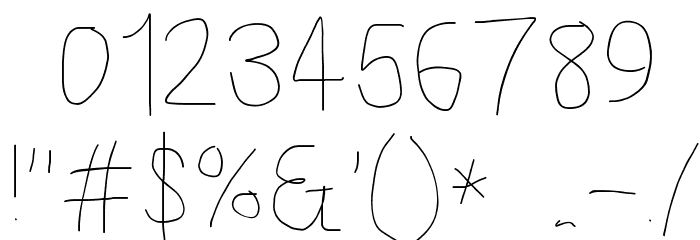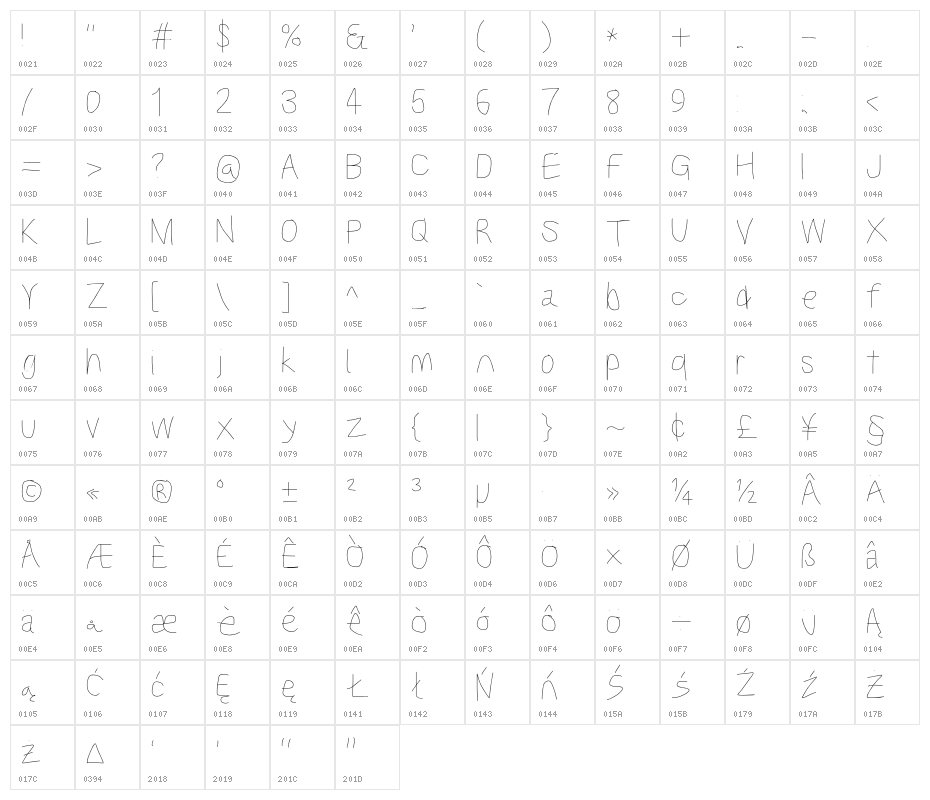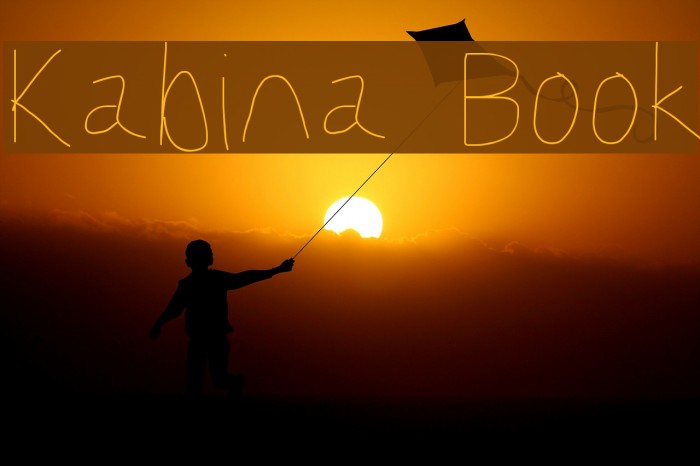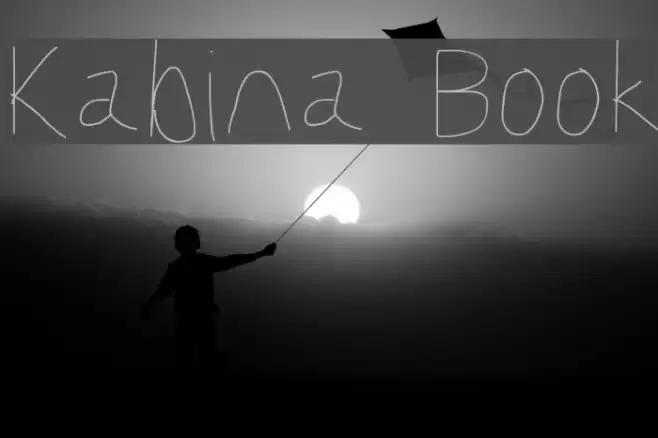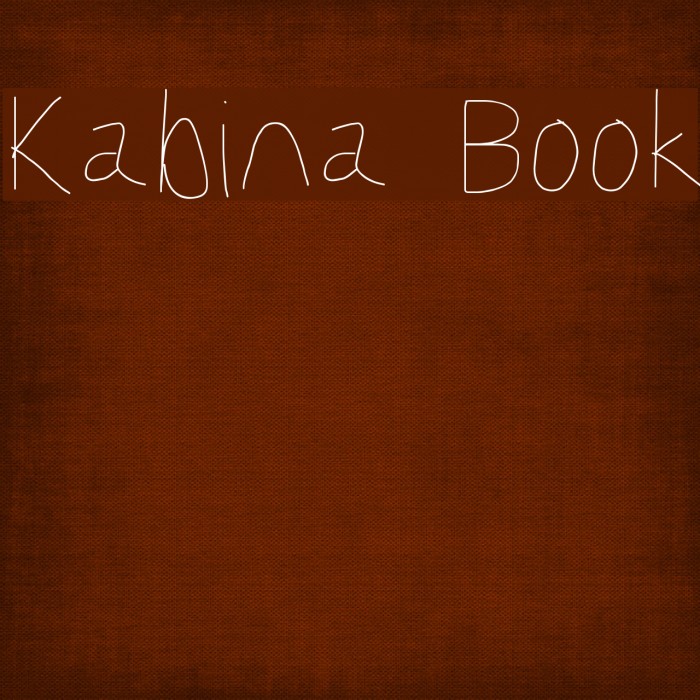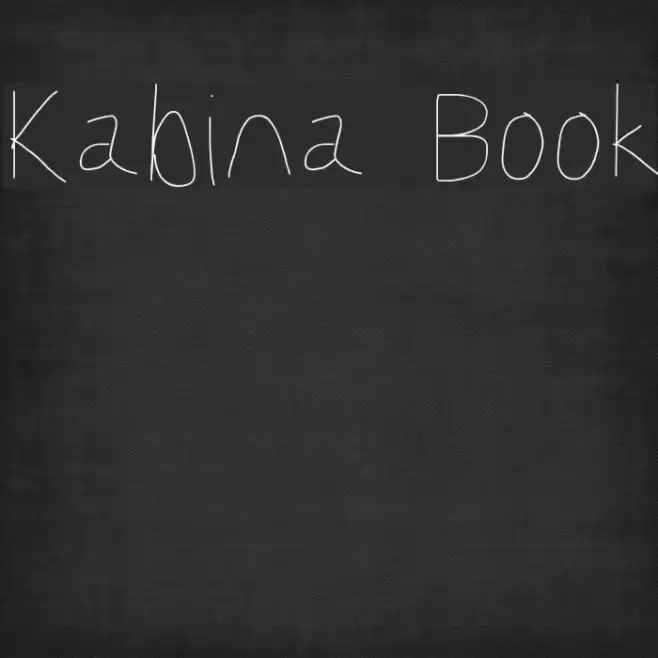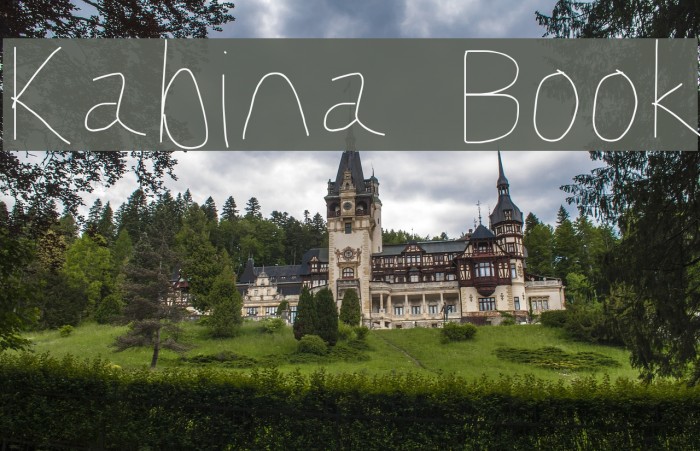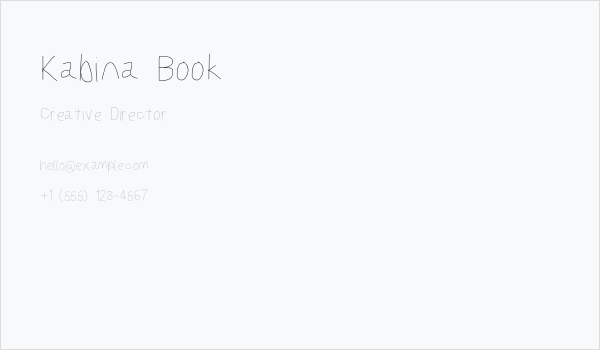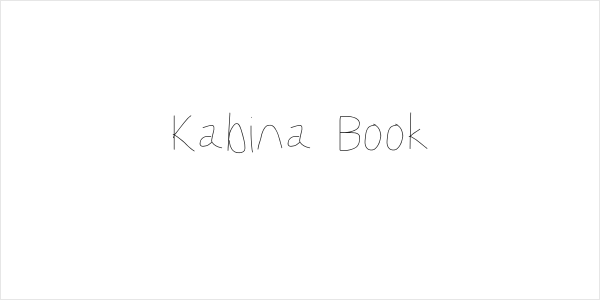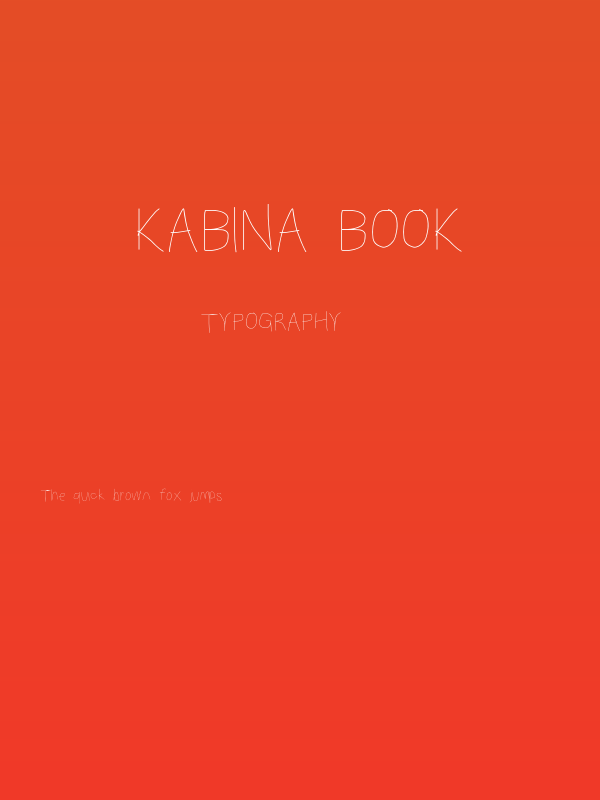
Kabina Book Font
Kabina Book Description
This font features a handwritten style with a casual and informal appearance. The letters are thin and slightly uneven, giving it a natural and organic feel. The uppercase and lowercase characters maintain a consistent height, while the numbers and special characters complement the overall aesthetic. The strokes are delicate, with a slight variation in thickness, adding to the handwritten charm. This font is well-suited for projects that require a personal touch, such as invitations, greeting cards, or creative branding.
| Overall Style | Casual, Organic |
| Use Case | Invitations, Greeting cards, Creative branding |
| Proposed Projects | Ideal for invitations, greeting cards, personal branding, and creative projects. |